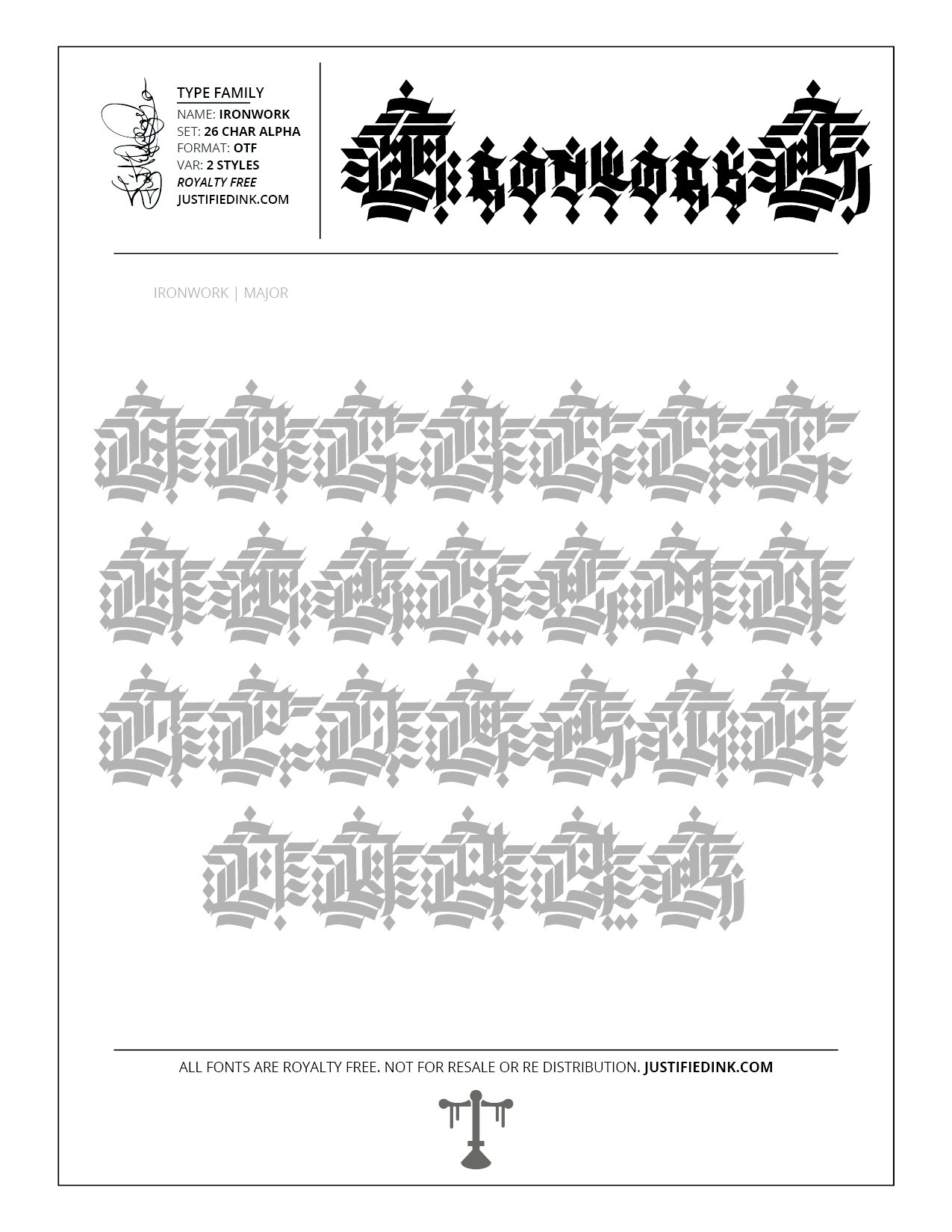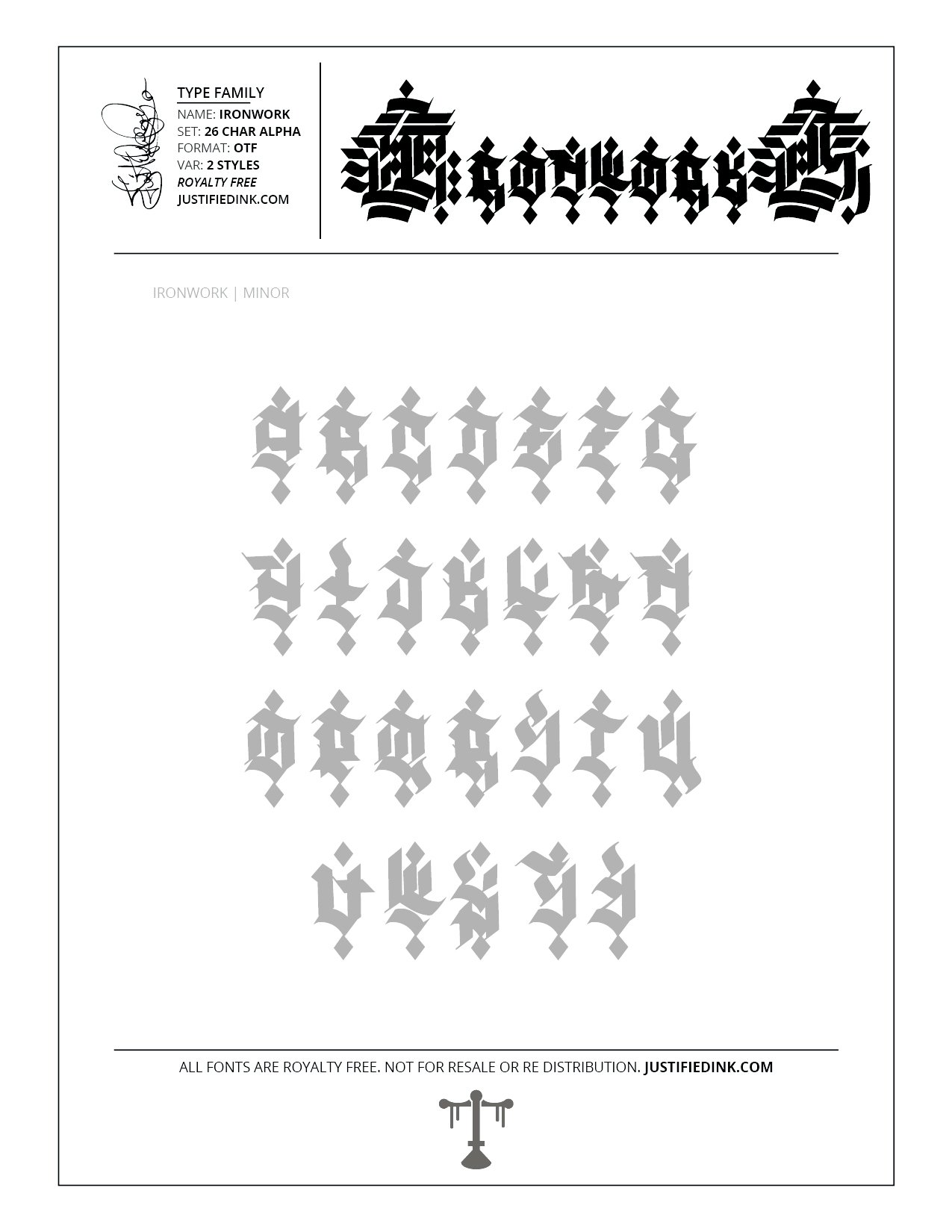
Ironworks (2 styles) - Custom Font by Justified Ink
NAME: Ironworks
Forged from pure metal, Ironworks comes in an unbreakable Major and sharp Minor style.
This font is part of the collection by Justified Ink, called Blackletter II. After 15+ years creating, I began to focus on building personal libraries of my work. The Blackletter II Collection was created through writing page after page, and countless hours over a 2 year span of daily practice. Each font from this collection has been hand drawn, manually vectored, and custom set as a type-able font. It comes in a full set of 26 char alpha. Each font family has variations in styles and/or non-alpha chars.